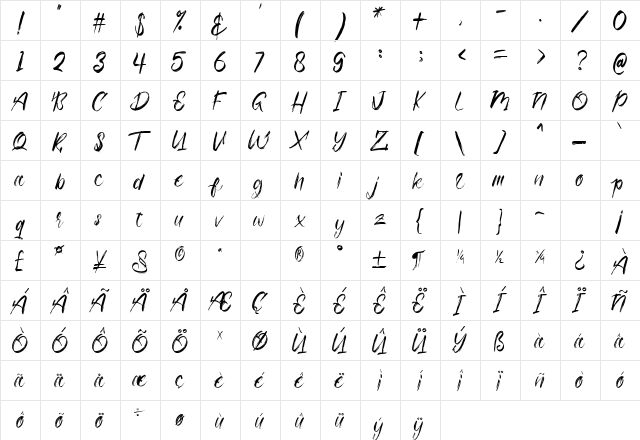
Ottodidact Regular
| Designer | Laire Banyu Sandi Pawenang |
Design Context for Ottodidact Typeface
Ottodidact is a composed and adaptable typeface that performs quietly and consistently across a wide range of design contexts.